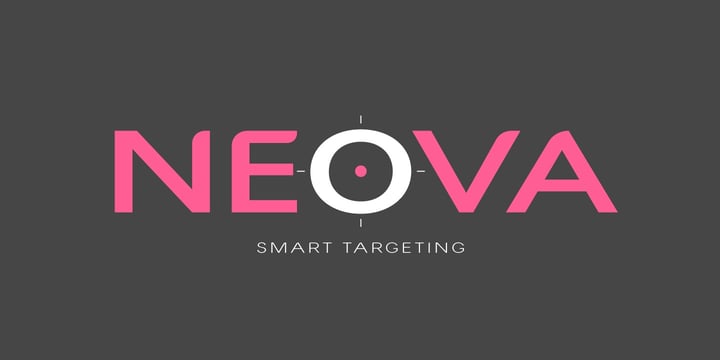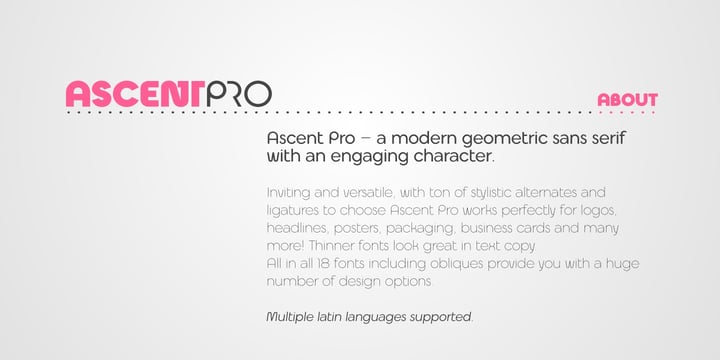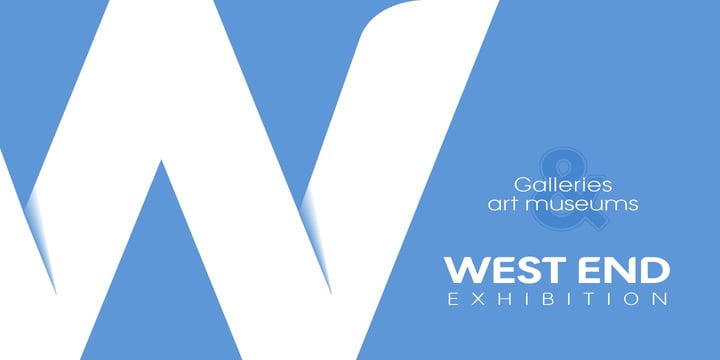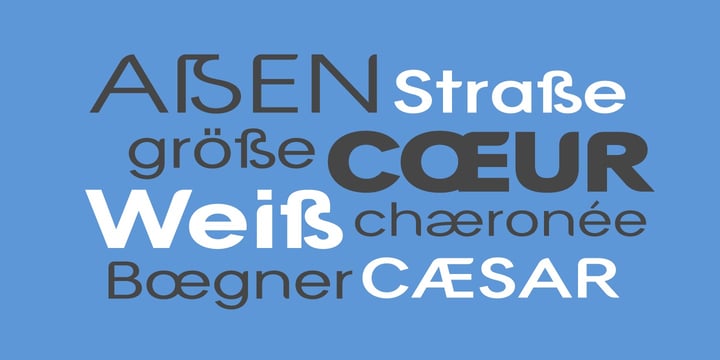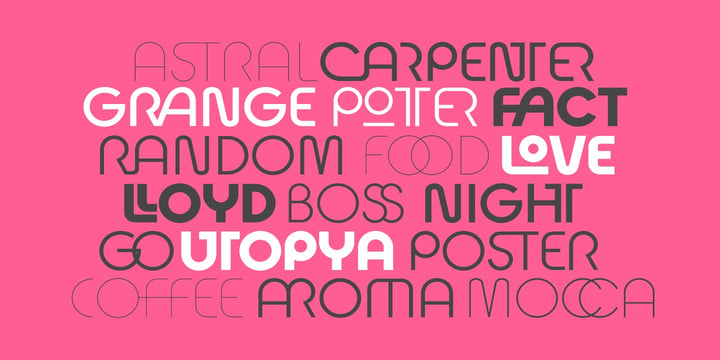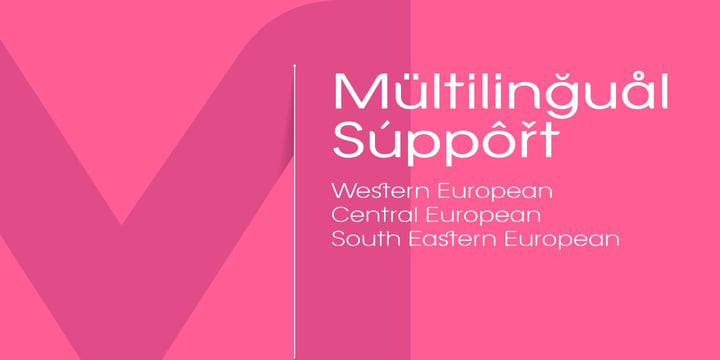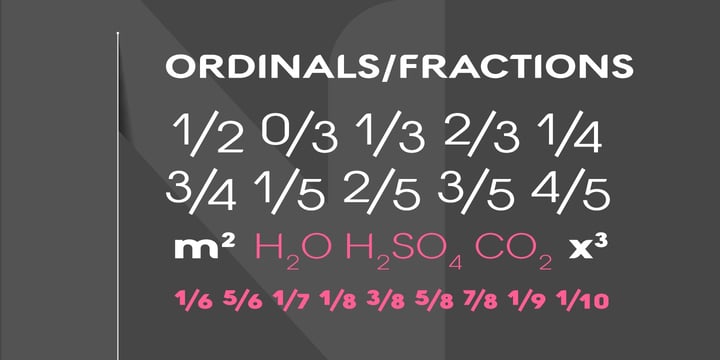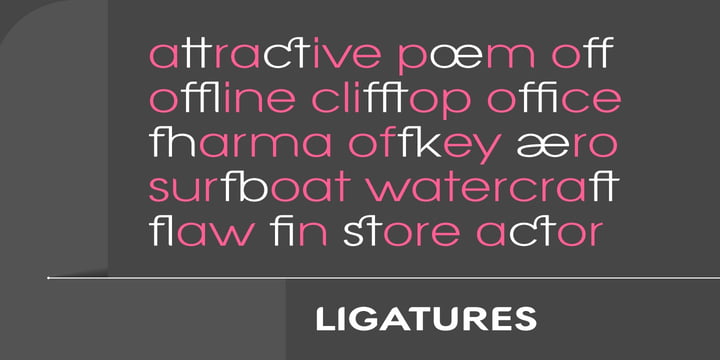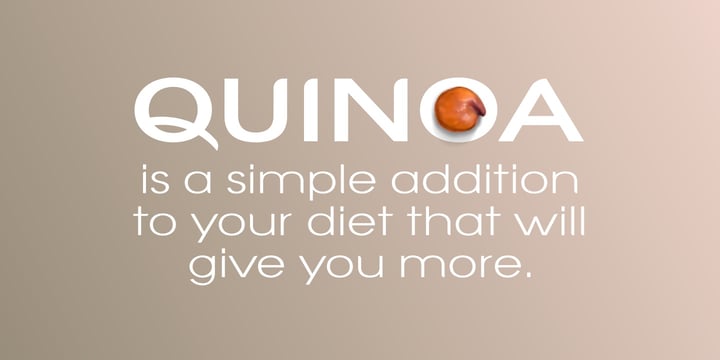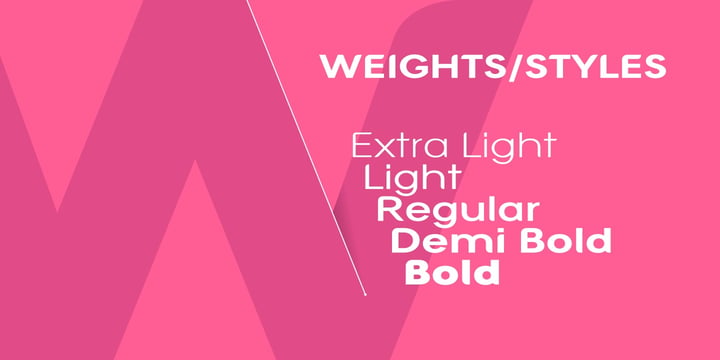
Modern Sans Duo
Modern Duo is a collection of two contemporary sans serif font families selected to give designers more creative flexibility. Each font brings its own character and can be used across a wide range of projects, including branding, editorial design, packaging, social media, and digital content. A versatile modern set for building clean, distinctive designs.